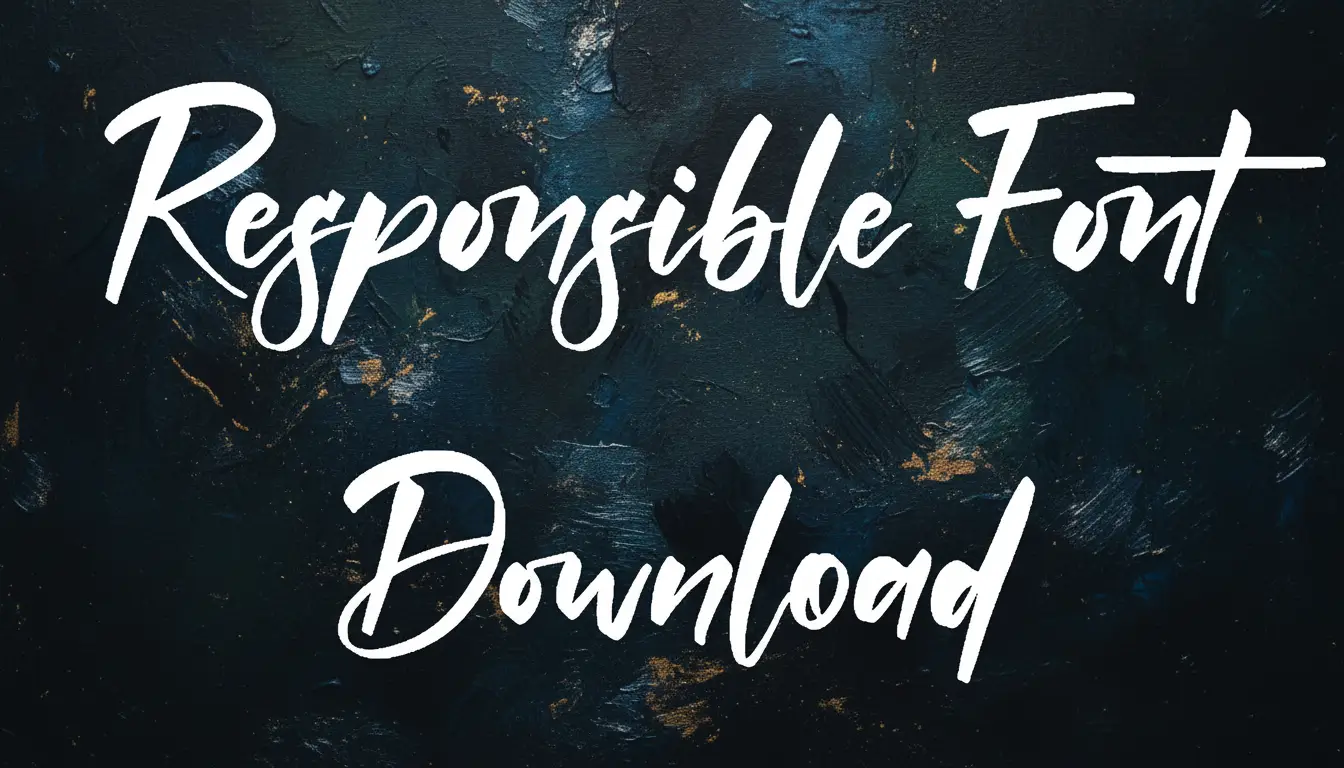
Responsible Font
Responsible is a script font designed by Wildan Suprian Syah. It has that hand-lettered, flowing feel people look for when regular type seems too stiff. You can download it for free and test it with your own words in the preview above.
What You Can Type With Responsible
With complete upper and lowercase letters and all ten digits, Responsible is ready for real wording, not just a single headline. Common punctuation such as &, !, ? and @ is included as well. It also has the accented letters you need for Spanish, French, German, Portuguese and Italian.
Where Responsible Works Best
Responsible is a natural fit for wedding invitations, logos and signature-style headings. Script fonts read best in short bursts, so keep it to names, titles and one-line quotes. Skip all caps: script capitals are drawn to start a word, not to fill one.
Does Responsible support accented letters?
Yes. Responsible includes the accented letters needed for Spanish, French, German, Portuguese and Italian, so it works for more than just English.